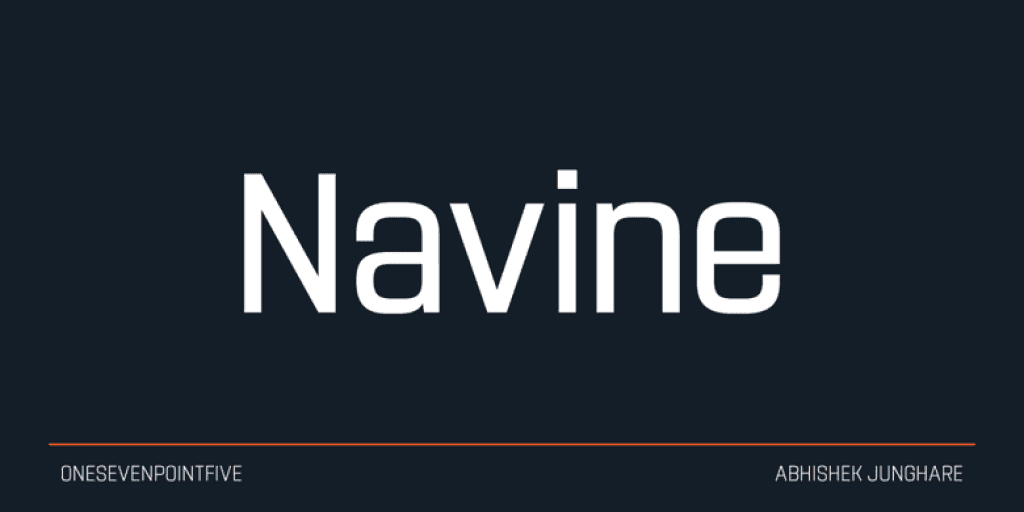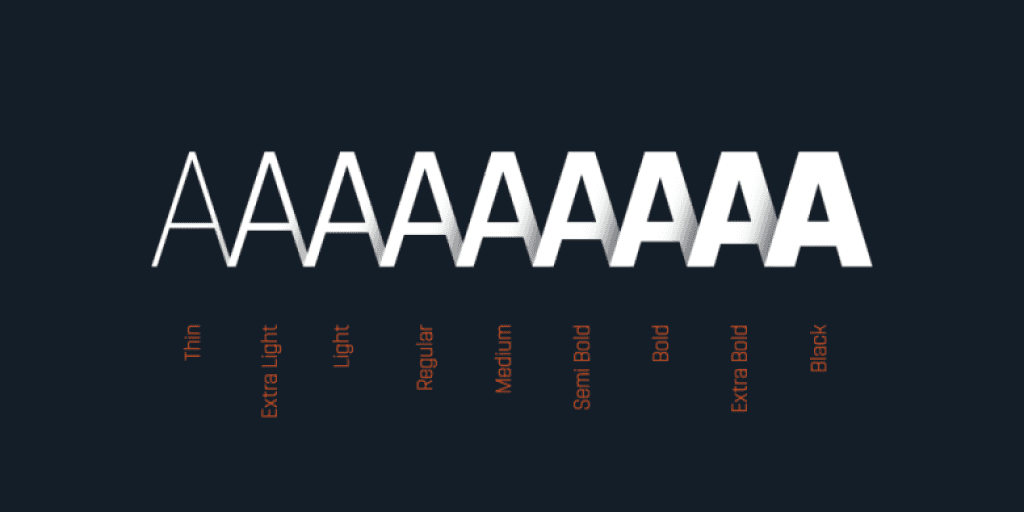
Navine Font is an elongated typeface with three widths that each feature 9 uprights and italics, plus impressive OpenType features such as alternate glyphs, kerning pair superiors/inferiors kerning and much more. Navine will complement any design perfectly.